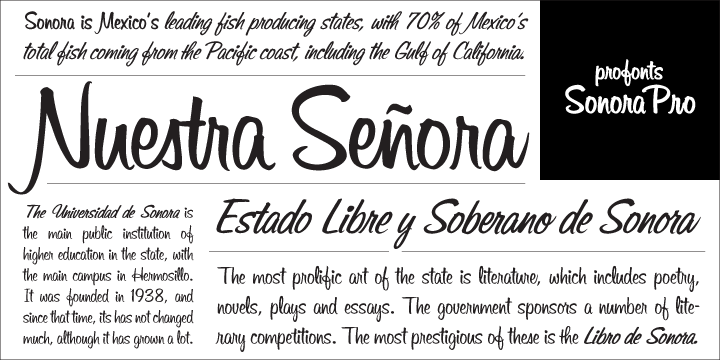
Looking for a gentle and elegant typeface that combines warmth with readability? Sonora Font Free Download is perfect for wedding invitations, lifestyle branding, cozy café menus, and heartfelt social media graphics. Its smooth curves and balanced design create a welcoming and sophisticated vibe.
Whether you’re designing heartfelt cards, boutique packaging, or personal blogs, Sonora Font Free Download adds a soft and inviting touch to your typography.